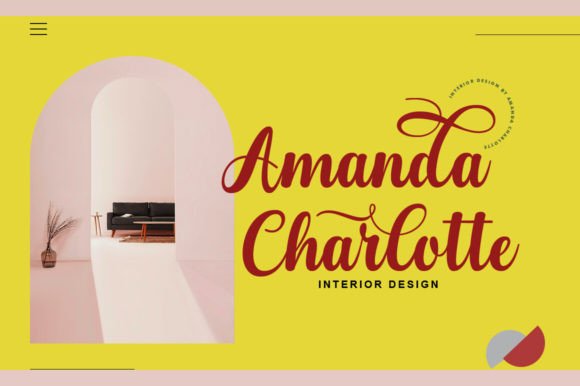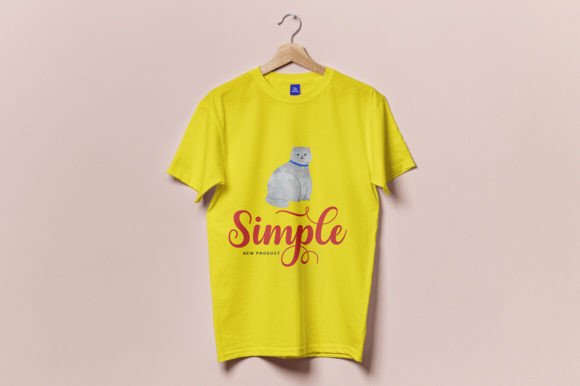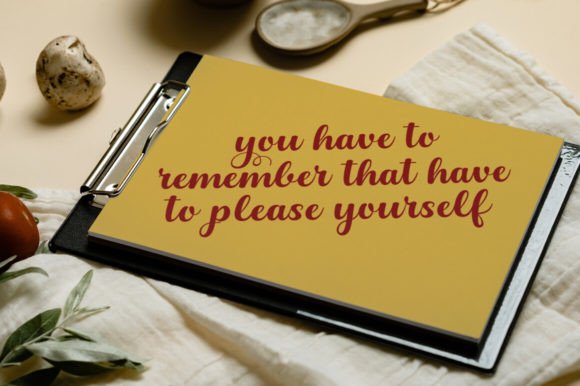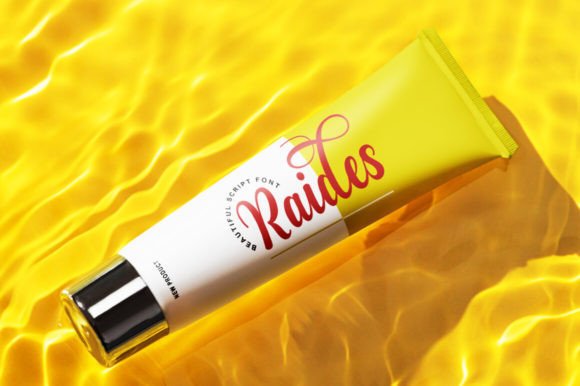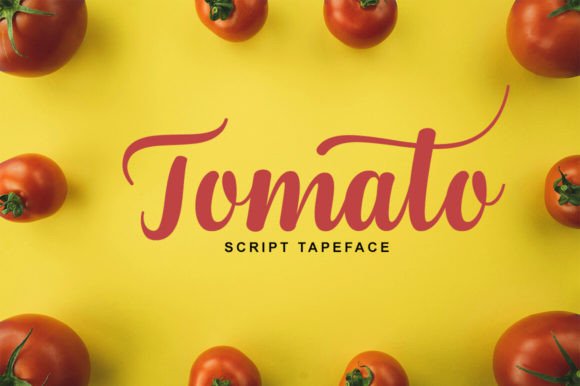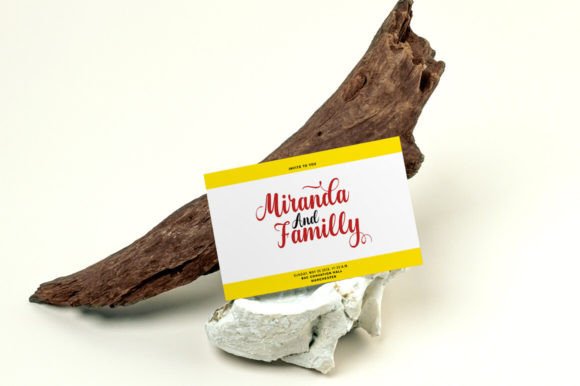
Introduction to Kaydon Font
Do you remember the moment when you stumbled upon the perfect font for your creative project? The one that made all your design elements come together in harmony? For many designers, that moment is elusive, but with the Kaydon Font, you can experience it every time. This script-style typeface is a game-changer, offering a unique blend of classic elements and modern twists that will elevate your designs to the next level.
As a valuable resource for designers, Kaydon Font is perfect for projects that require a soft, romantic aesthetic. With its smooth, elegant lines and fluid strokes, this font is reminiscent of neat, artistic handwriting. Whether you’re creating a logo, invitation, or graphic design, Kaydon Font is sure to impress with its high-quality design and versatility.
Key Features of Kaydon Font
- High-quality design resource for creative projects, featuring a unique and elegant style.
- Designed with precision and attention to detail, ensuring a professional and polished look for any project.
Honest Review: Kaydon Font
As a designer, I’m always on the lookout for high-quality design resources to elevate my creative projects. Recently, I had the chance to try out the Kaydon Font, and here’s my honest take.
- ✨ The Kaydon Font is incredibly versatile, making it perfect for a wide range of creative projects.
- ✨ The font is highly legible, even at small sizes, making it ideal for body text or titles.
Any limitations:
- ⚠️ The font is limited to a single style, which may not be ideal for designers looking for a more extensive font family.
- ⚠️ The font may not be suitable for very large or complex designs, as it can become difficult to read at extreme sizes.
Overall, I’m impressed with the Kaydon Font. It’s a high-quality design resource that’s perfect for designers working on creative projects. With its versatility, legibility, and free download option, it’s definitely worth considering for your next design project.